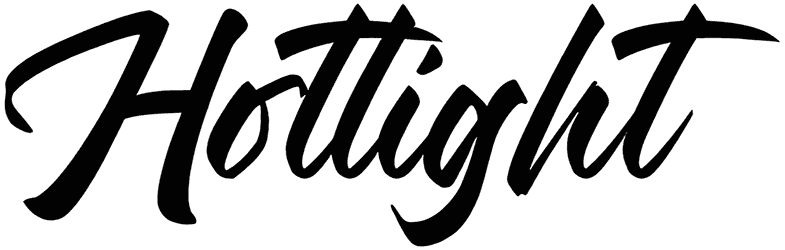
Hotlight Font
Use the script font Hotlight to add a feminine touch to your design and give your audience a sense of calm and contentment. This hand lettering font is ideal for usage in a wide range of applications, from magazine and newspaper headlines to invitations and more.